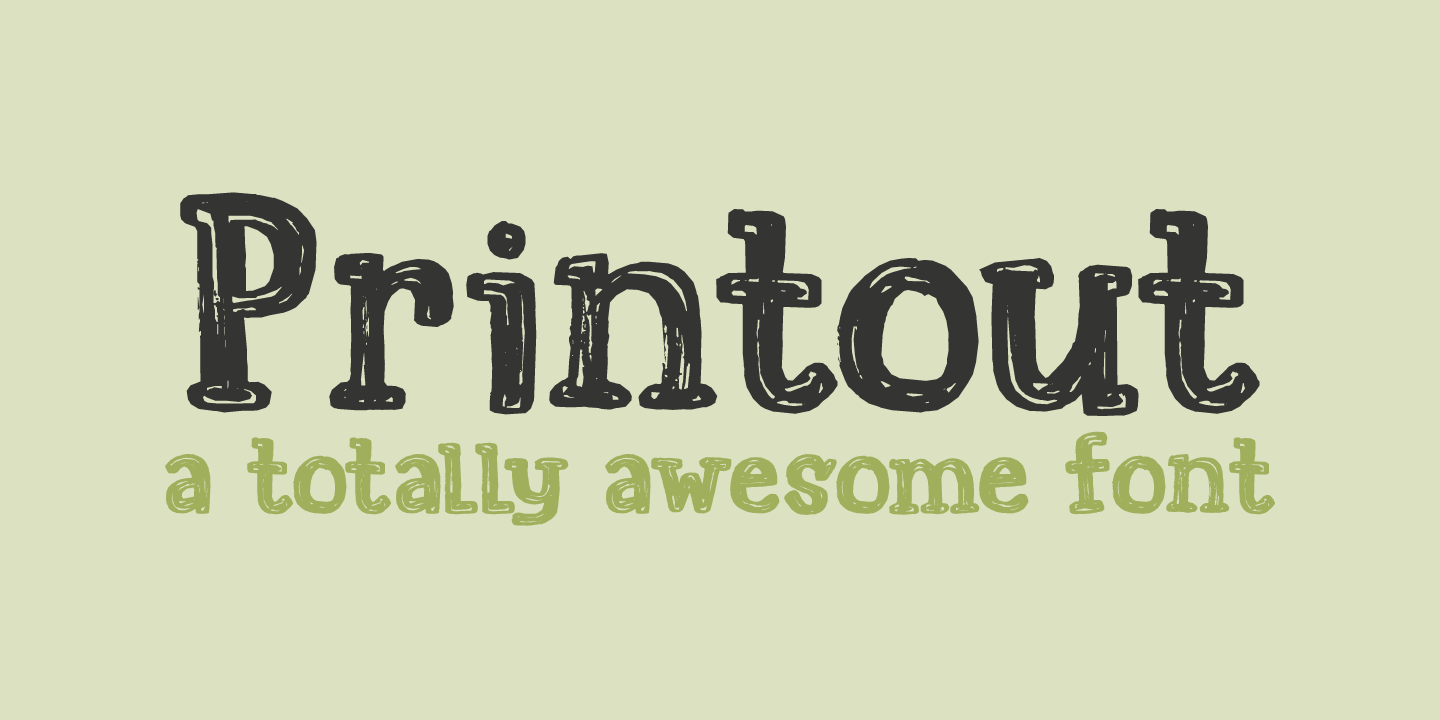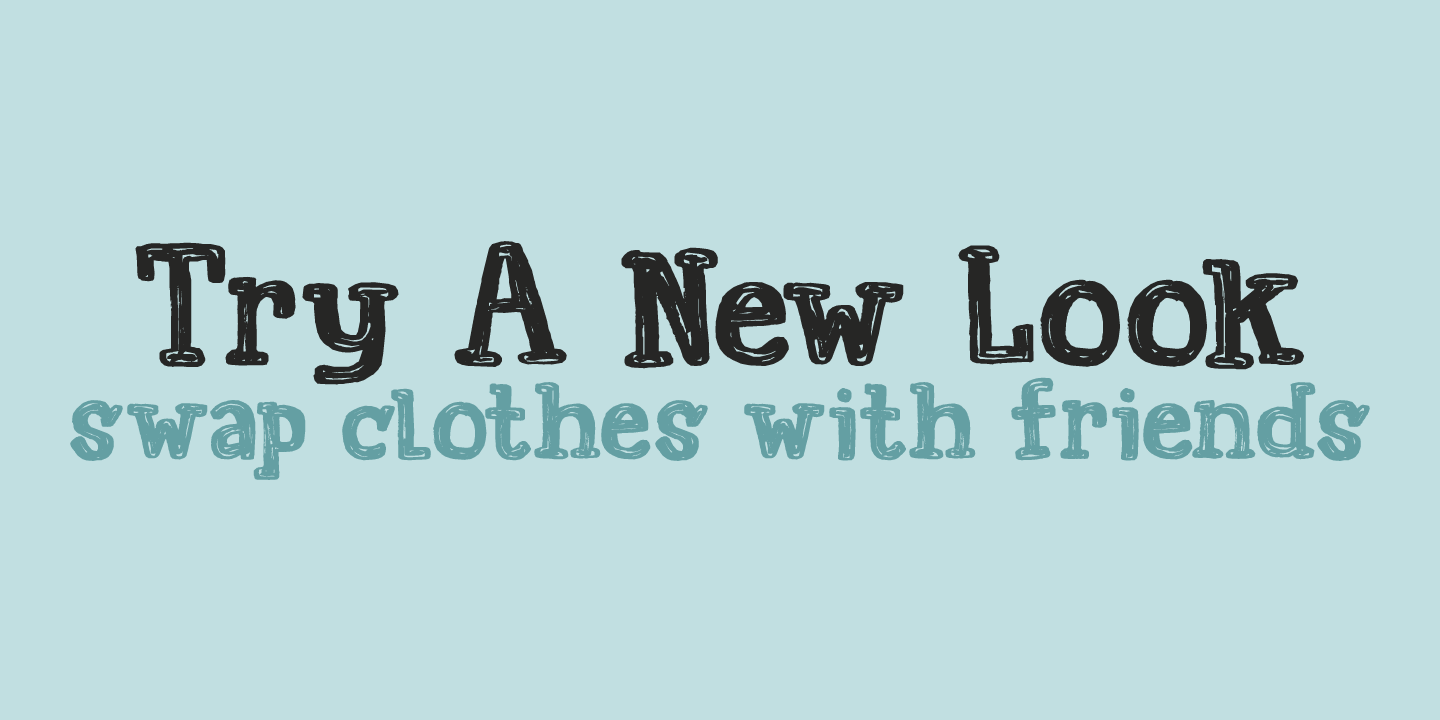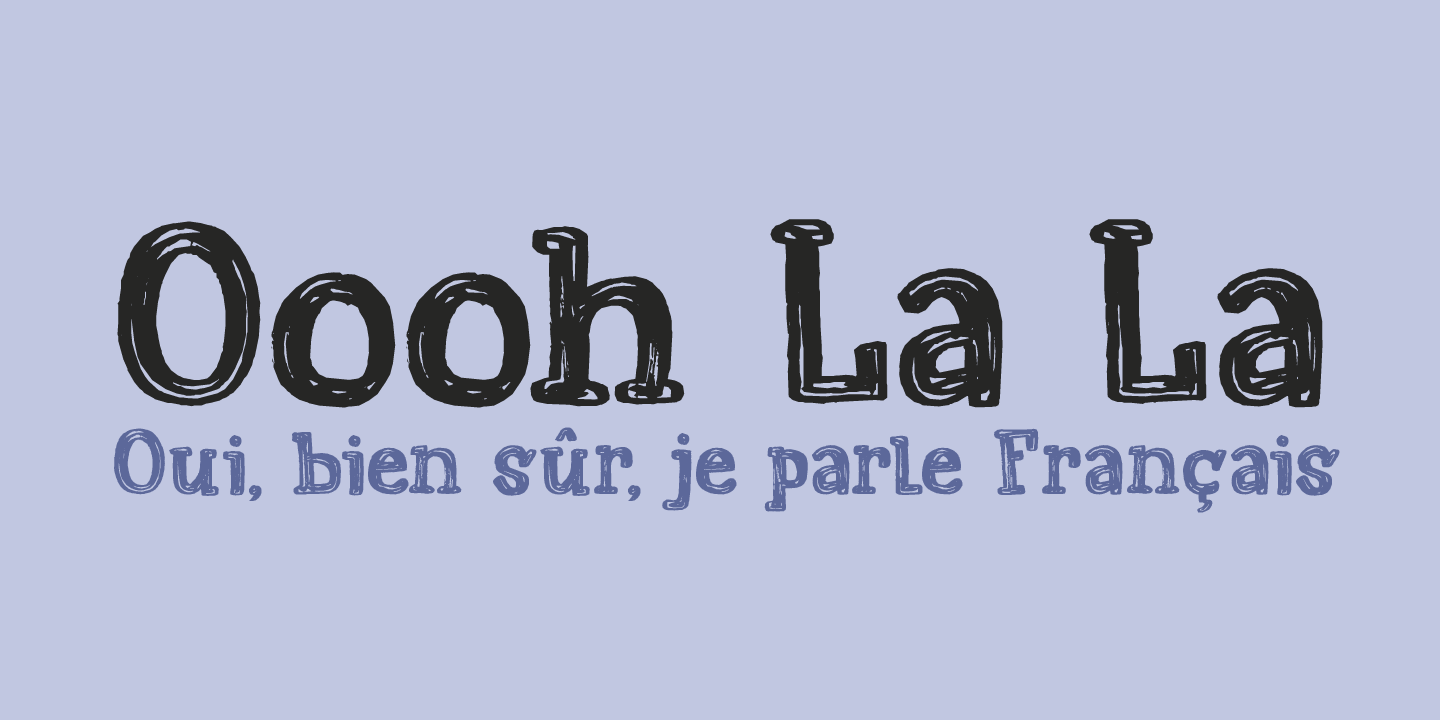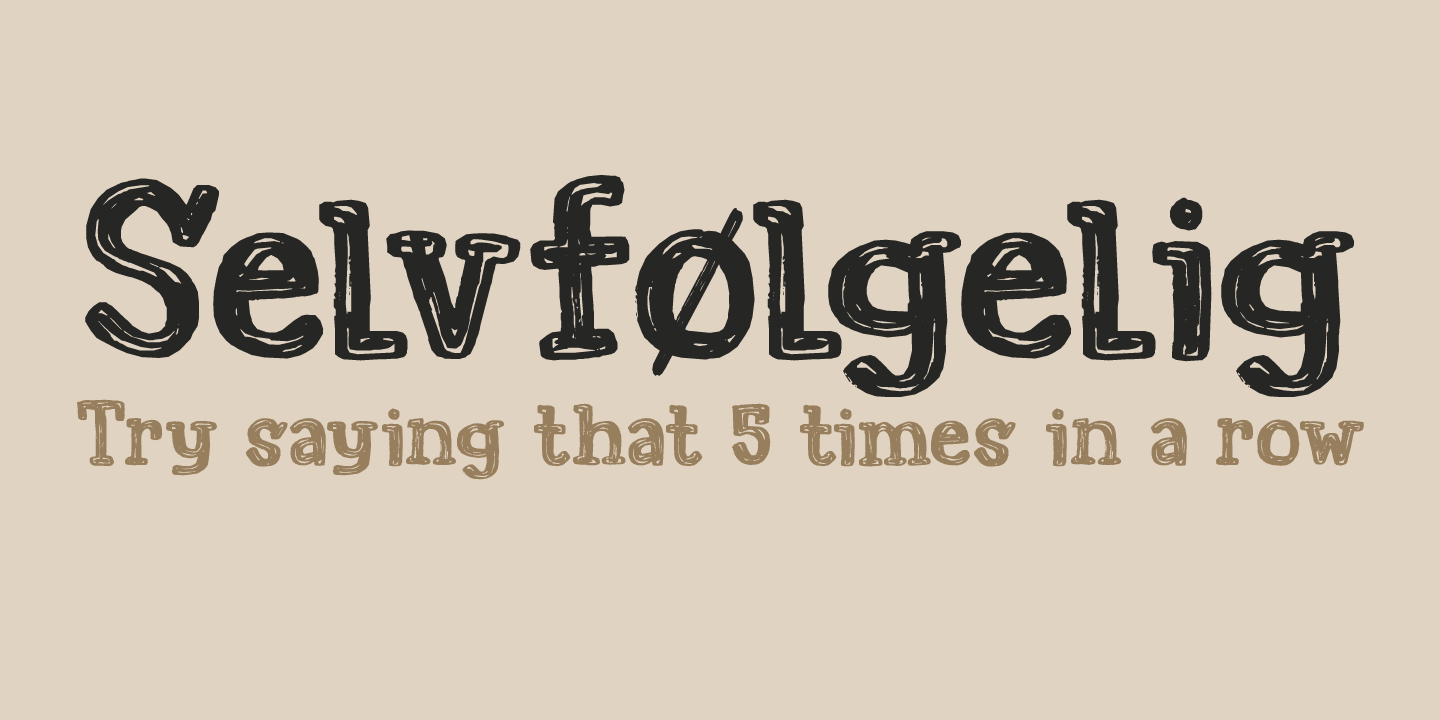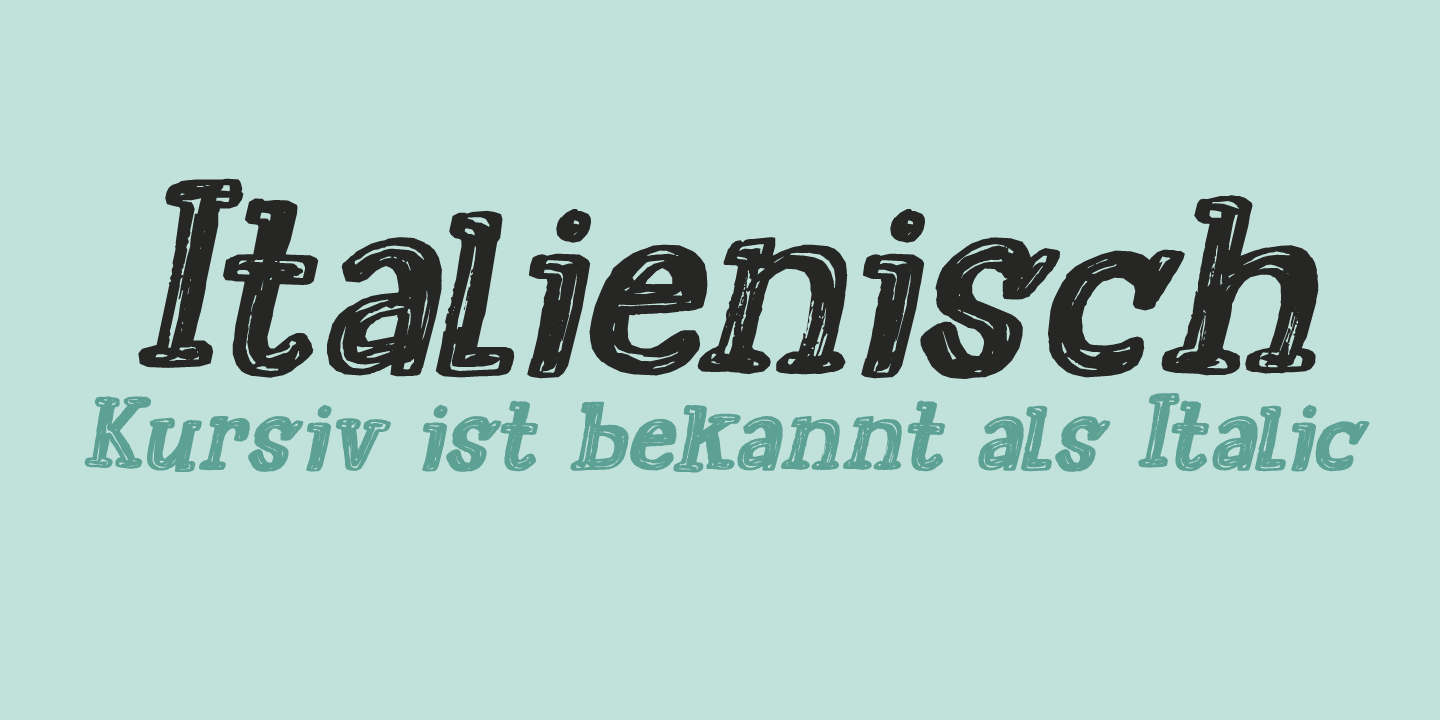
Printout
Font Family by Hanoded
Font naming is not all that difficult. Take Printout for example. I was busy working on this font, when my niece came over with a poem she needed to have printed. One of her classmates had the same request (they're writing poems for our national Remembrance Day). As I was printing out these poems, I thought the name Printout would be perfect for the font I was working on.
See?
It's not rocket science!
Printout is a totally awesome, completely handmade font. I used an almost dried out Japanese brush pen to get the eroded effect. Maybe I should name my next font ?Dried Out Brush Pen?? I'll let you know.